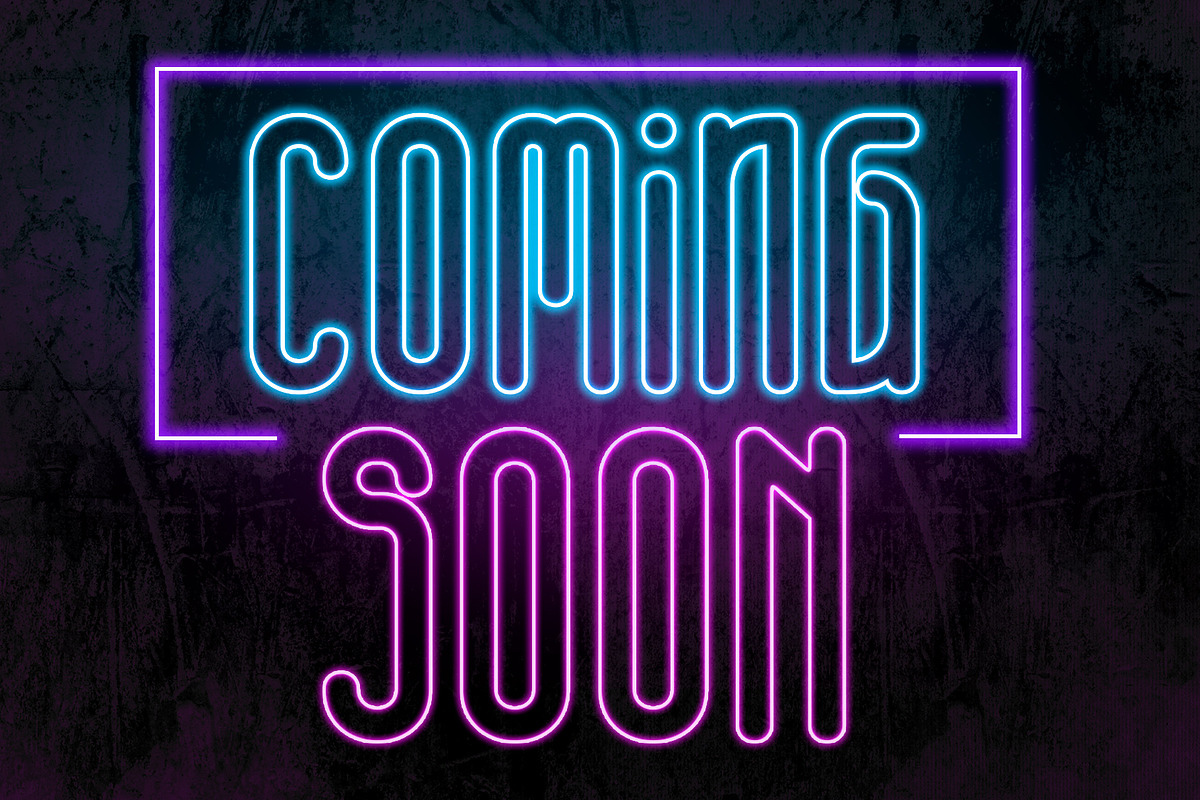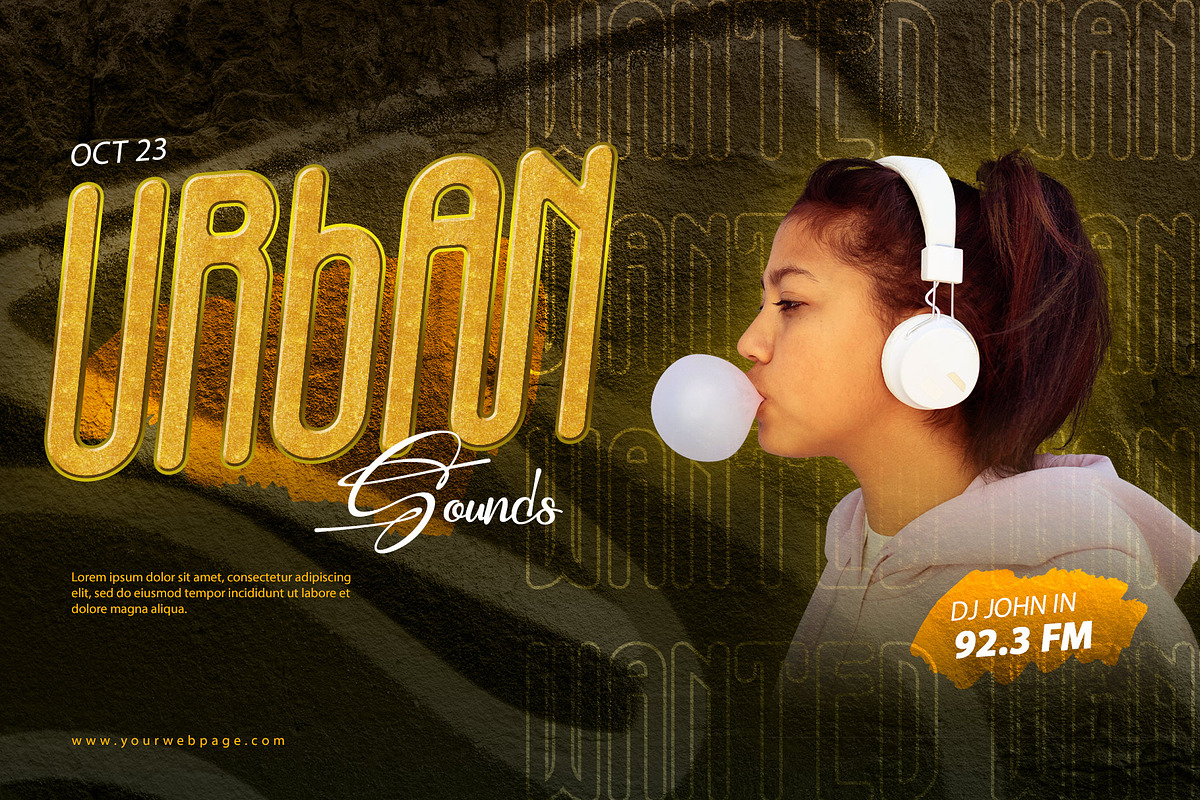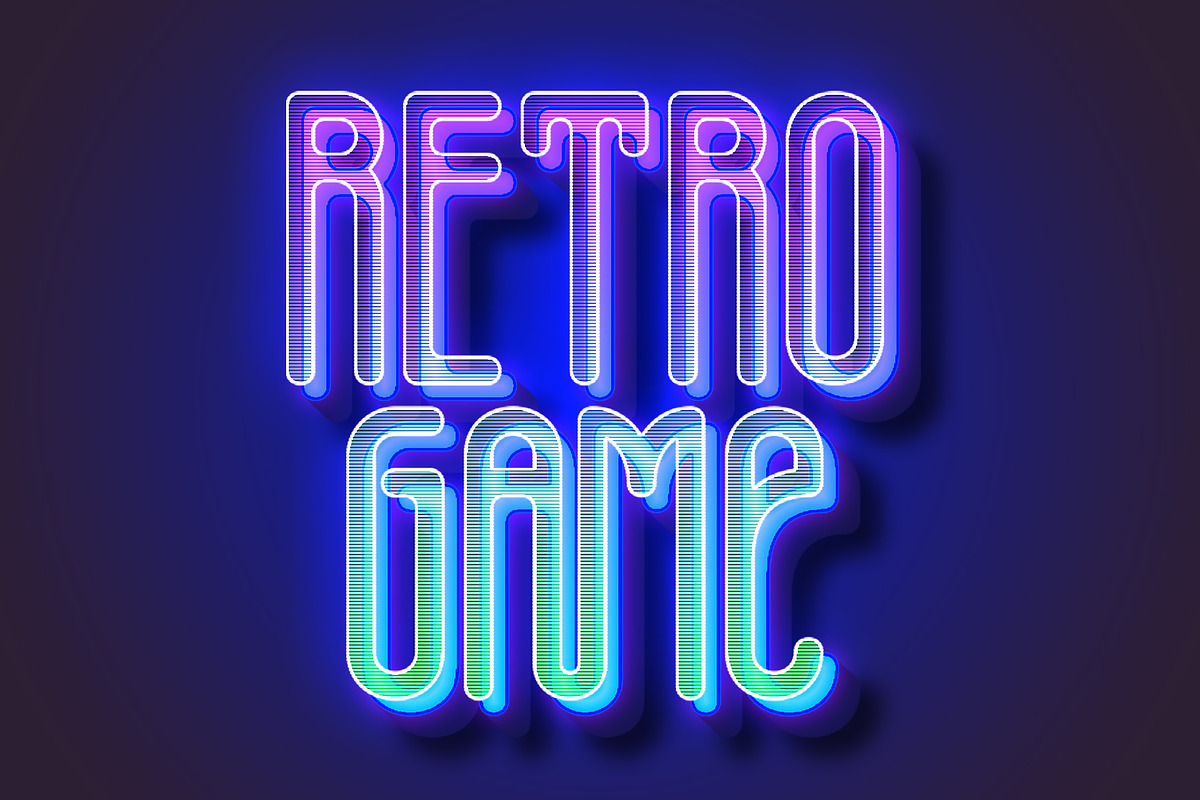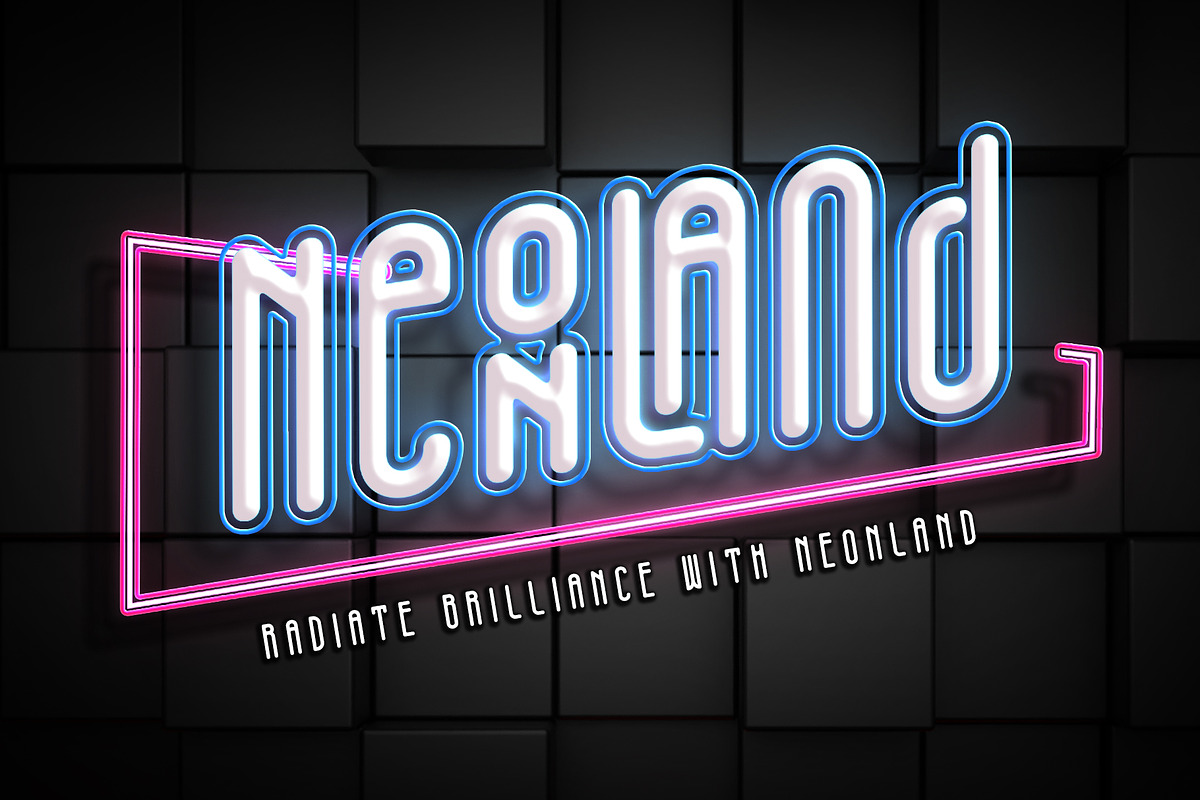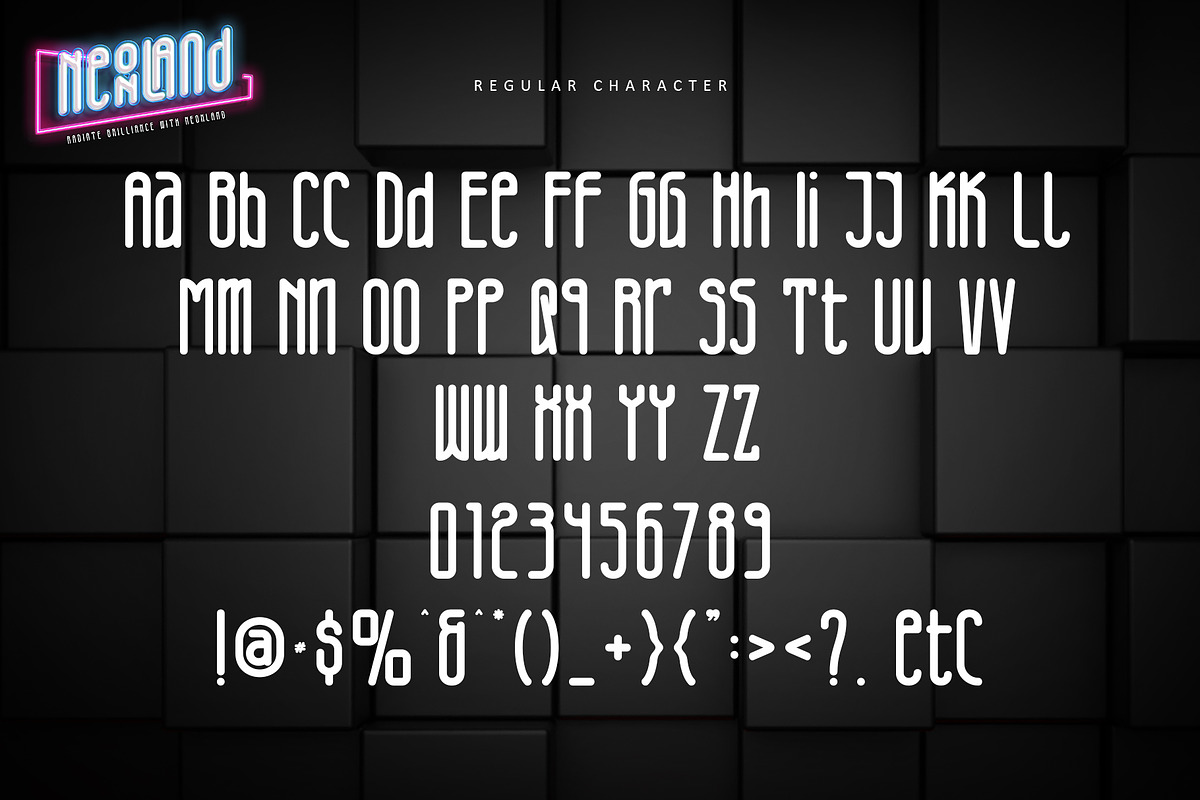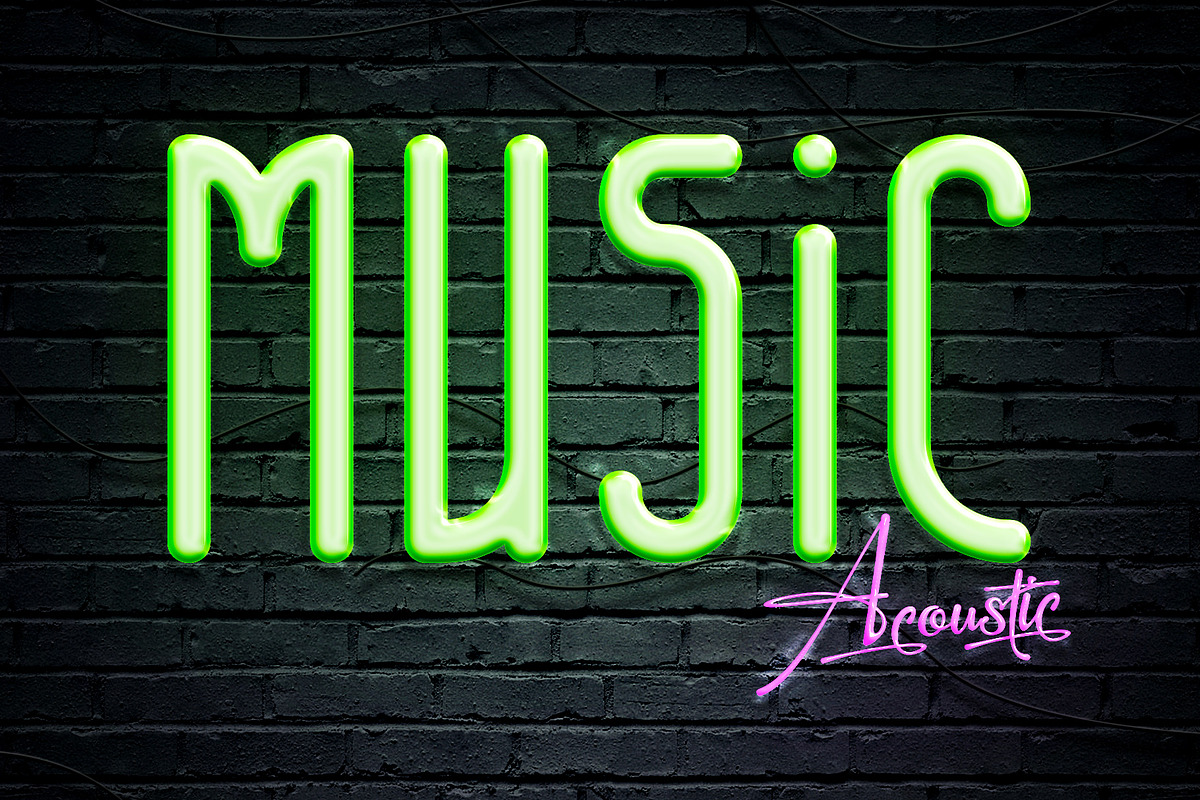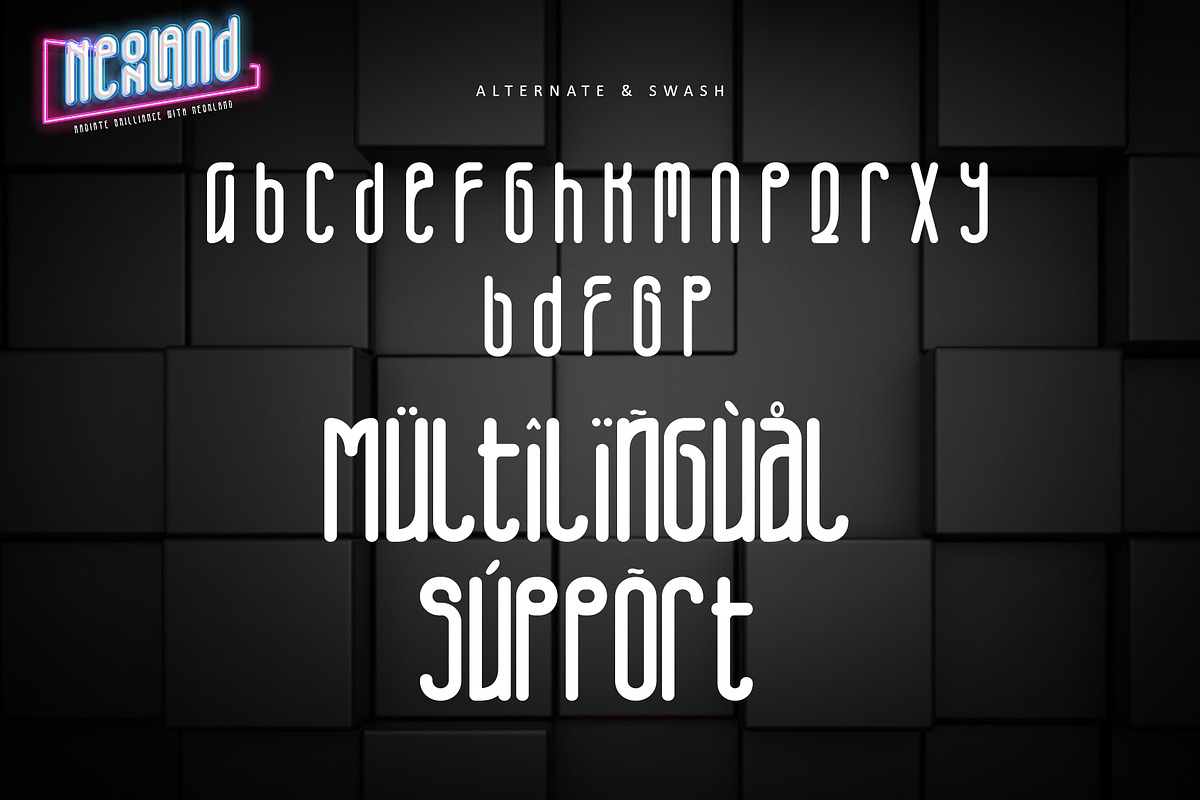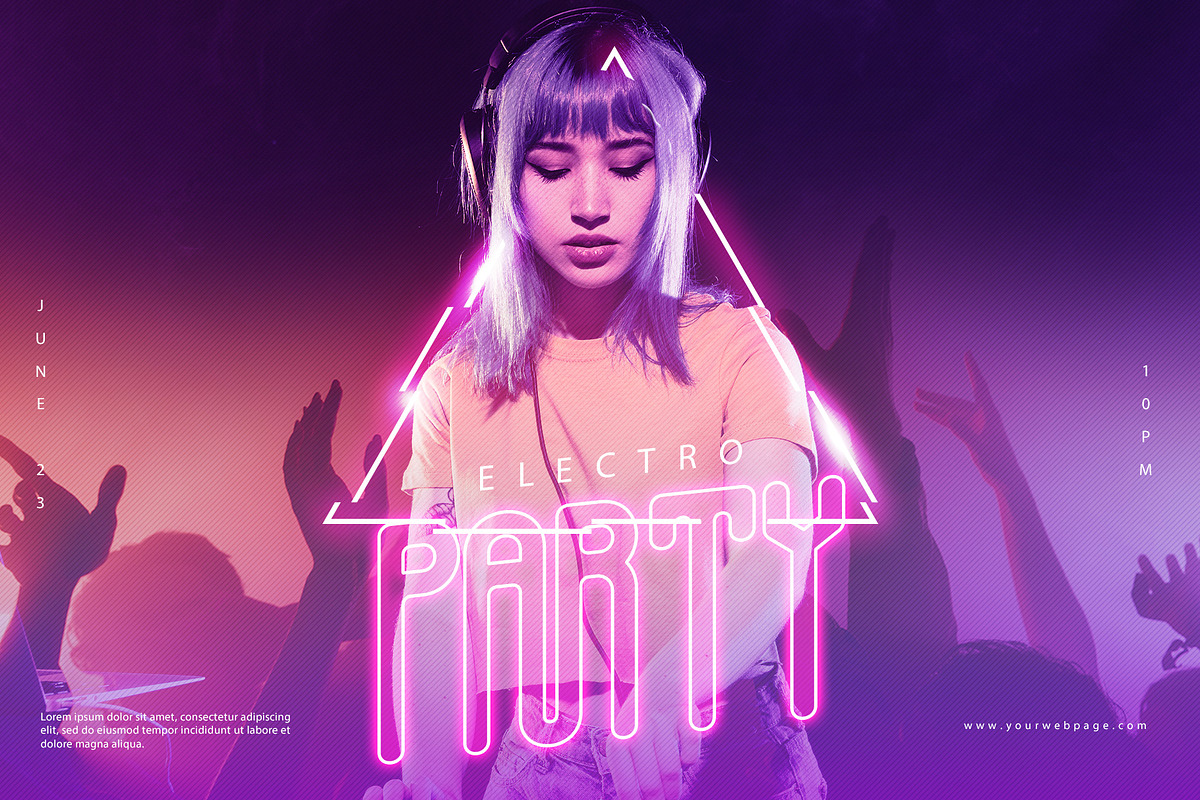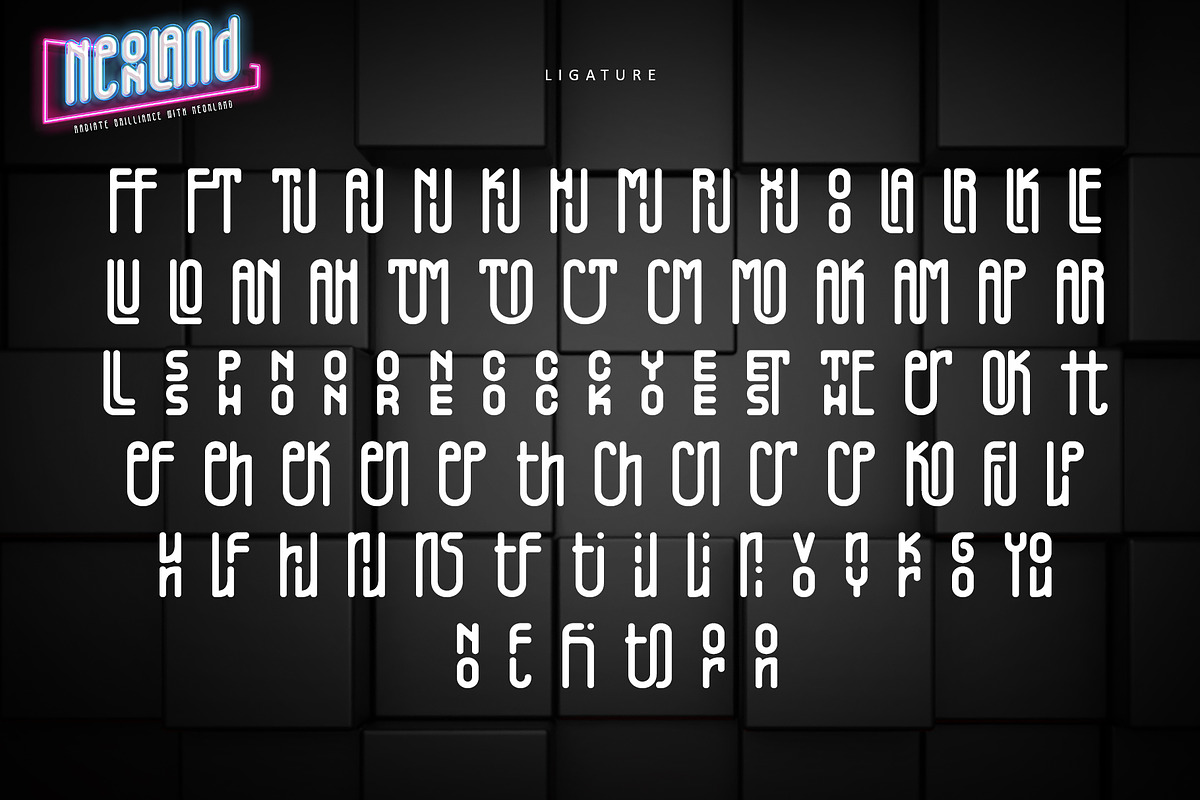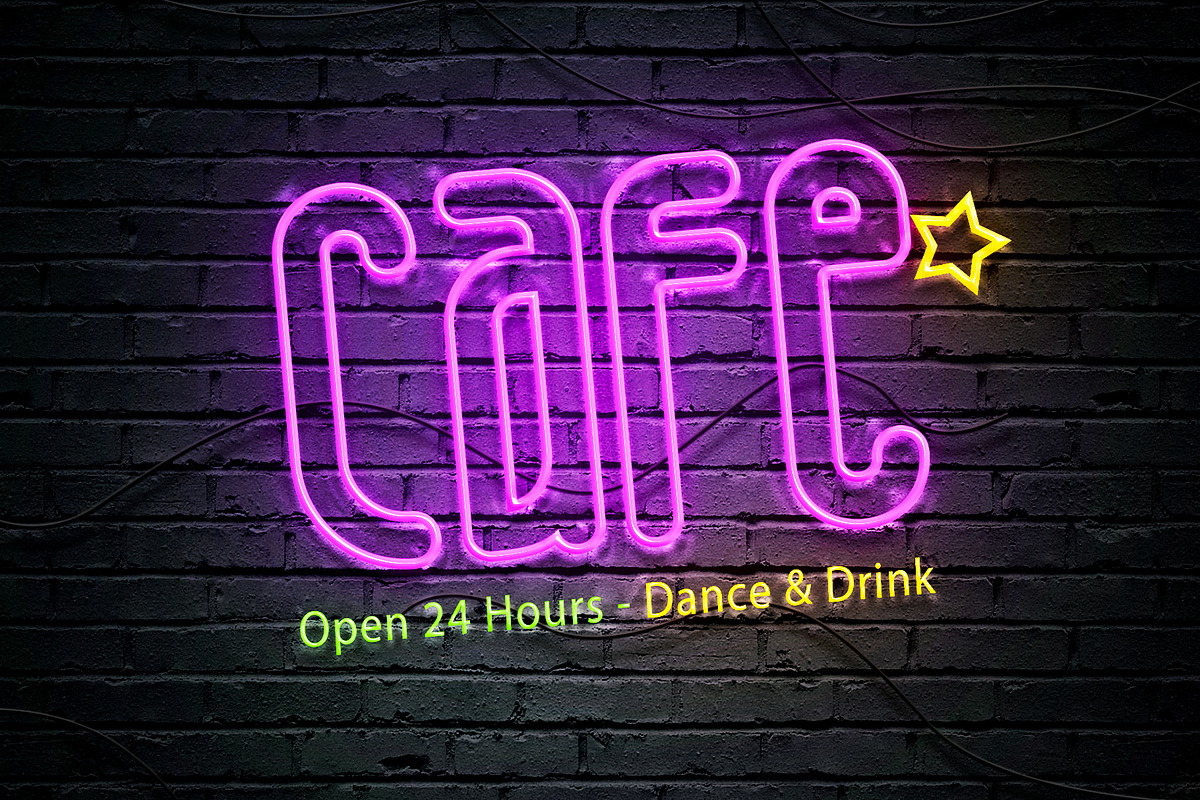
Neonland
"Electrify Your Designs with Neonland". Immerse yourself in the vibrant world of Neonland, where every letter exudes the pulsating energy of neon lights. This sans-serif font captivates with its sleek lines and futuristic appeal, perfect for bringing a modern twist to your projects. Whether it's signage, logos, branding, or digital designs, Neonland illuminates your creativity with its unmistakable neon charm. Say goodbye to the ordinary and embrace the electrifying allure of Neonland to make your designs shine brighter than ever!
- Support multilingual; ä ö ü Ä Ö Ü ß ¿ ¡
- uppercase letters
- Alternate, swash & Ligature